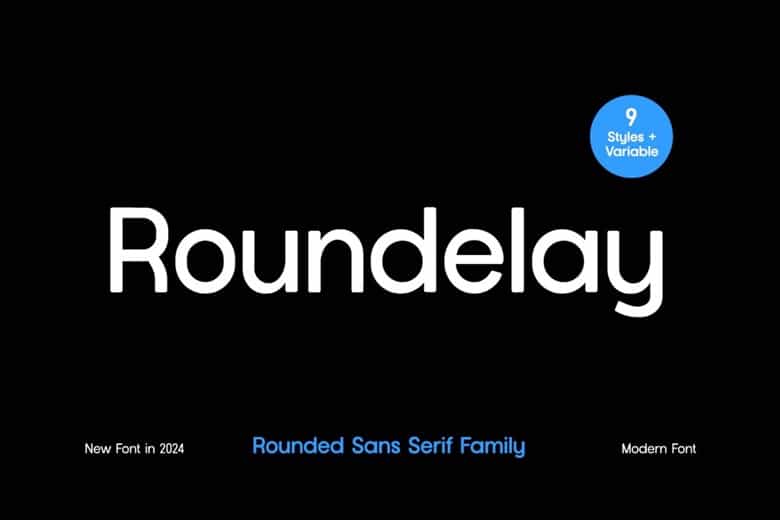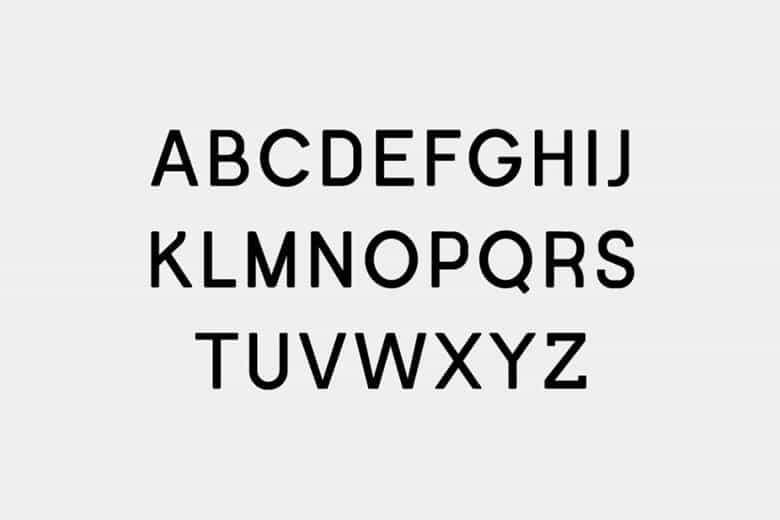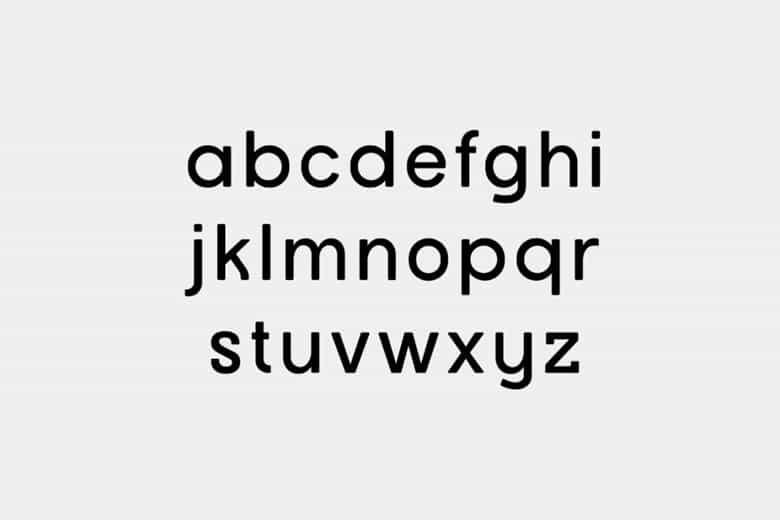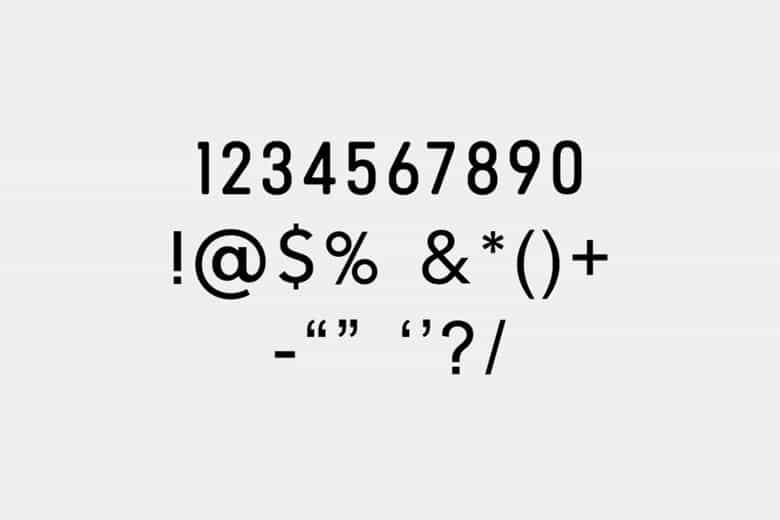
Roundelay is a new rounded sans serif font family. It’s looks classy, elegant and stylish. This font is best for stationery, logo, wedding, typography quotes, magazine, or book covers, website headers, branding, and more.